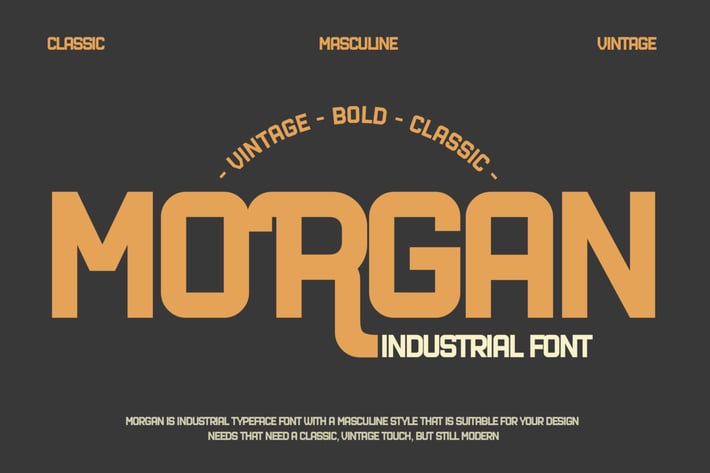
Industrial Font - Morgan
Looking for a powerful and distinct font for your brand?
Introducing Morgan– an Industrial Font.
A perfect blend between vintage and modern design, Morgan makes your business image strong and reliable.